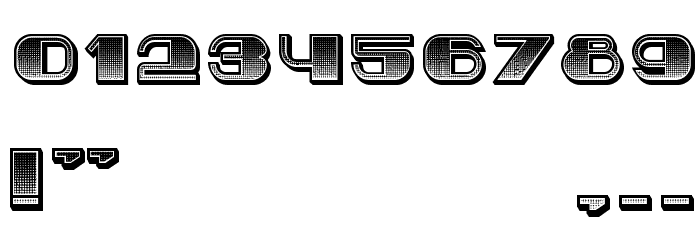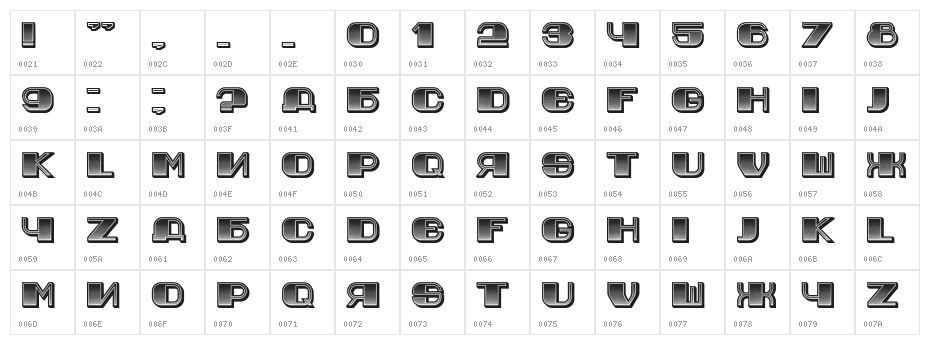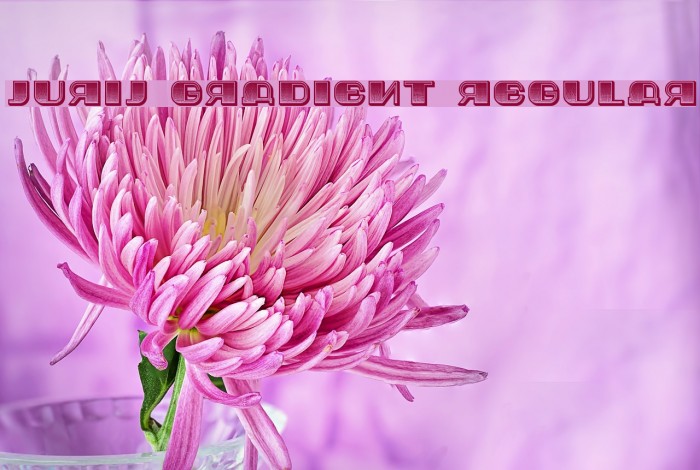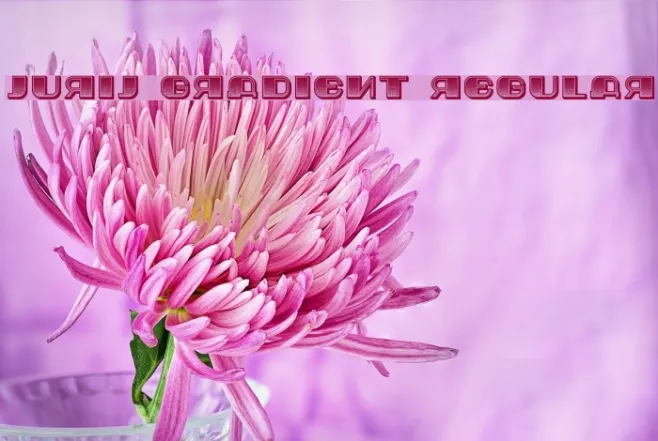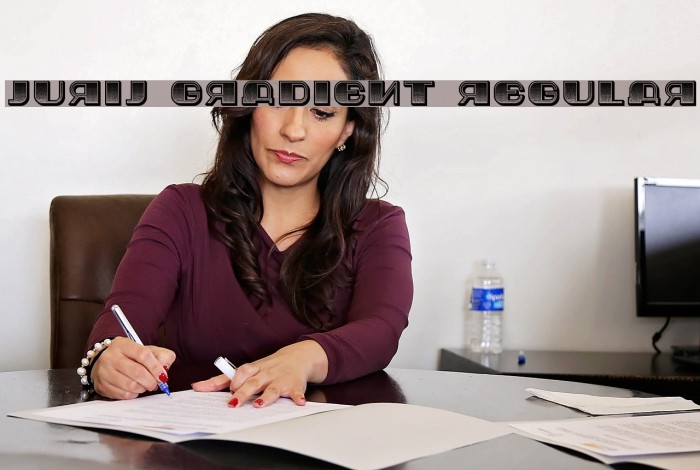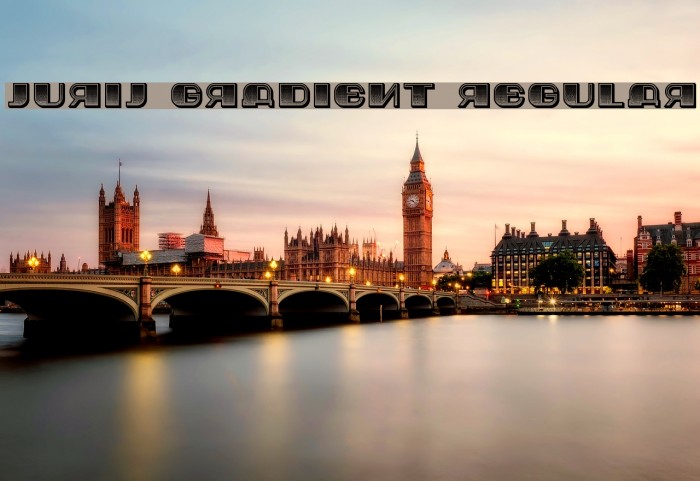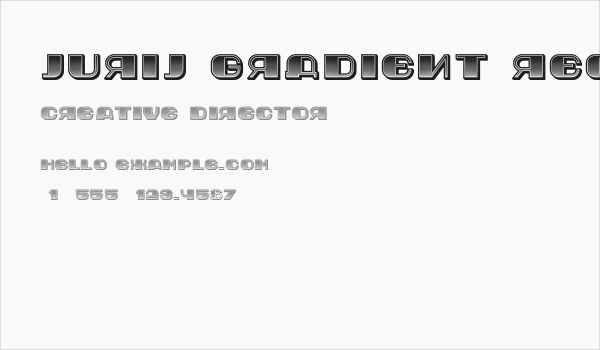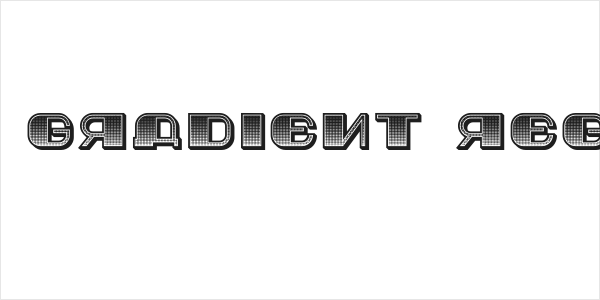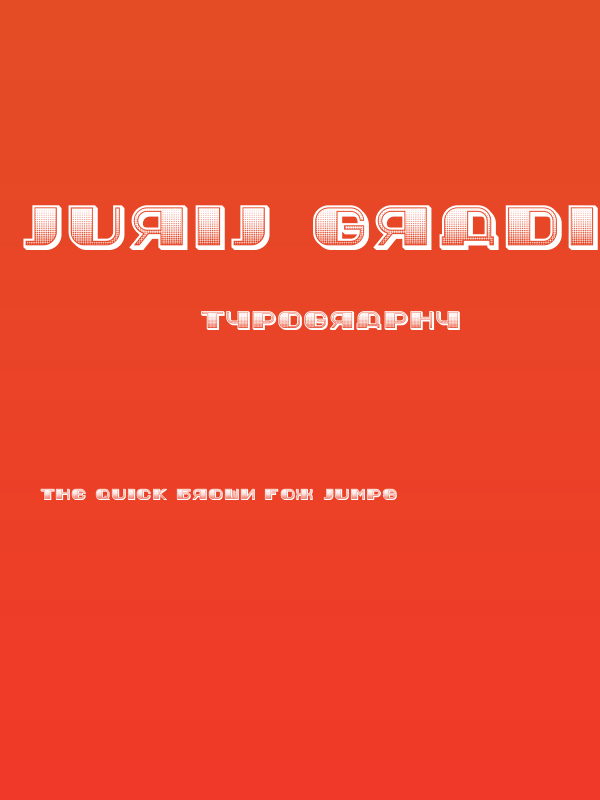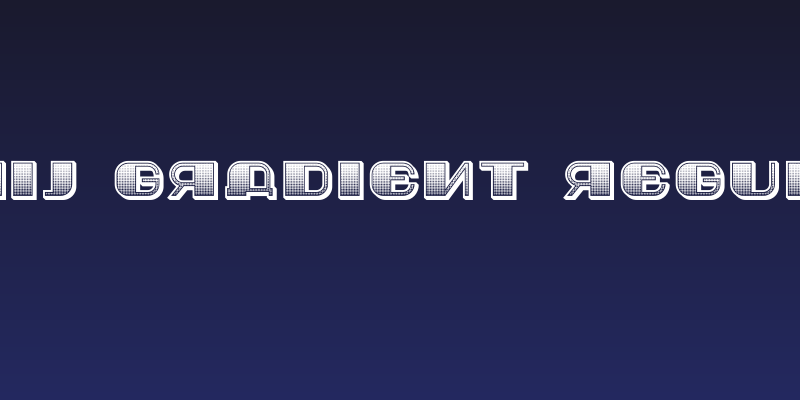
Jurij Gradient Regular Font
Jurij Gradient Regular Description
This font features a bold and striking design with a unique gradient effect that gives it a three-dimensional appearance. The characters are uppercase and exhibit a strong geometric structure, with a consistent width and height across all letters. The gradient effect adds depth and a modern touch, making it stand out in any design. The font includes both Cyrillic and Latin alphabets, as well as numerals and a selection of punctuation marks. Its bold and decorative style makes it ideal for attention-grabbing headlines and titles.
| Proposed Projects | Ideal for posters, headlines, logos, and any design requiring a bold, eye-catching typeface. |